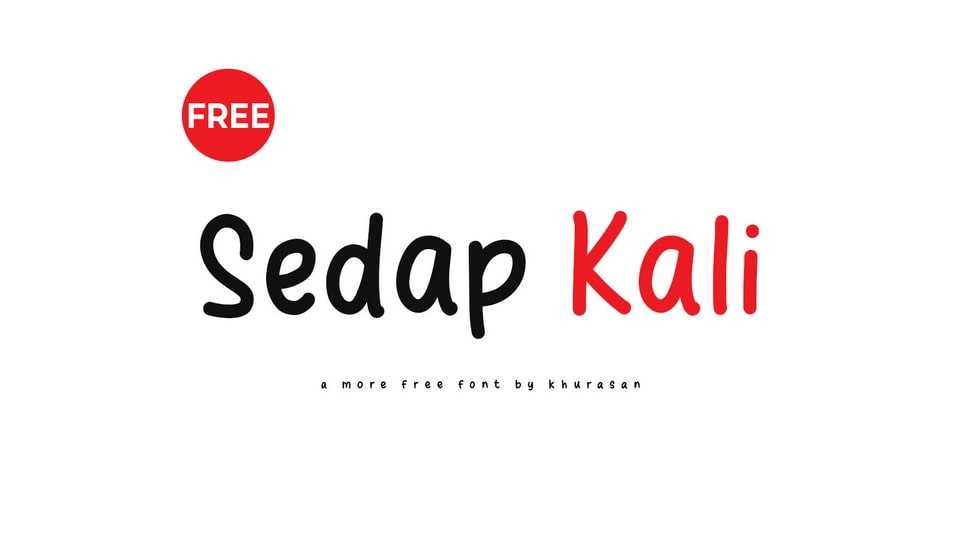
Download Sedap Kali font, a simple and natural handwritten typeface that brings a touch of organic elegance to your designs. Sedap Kali font features smooth, flowing letterforms with subtle irregularities.